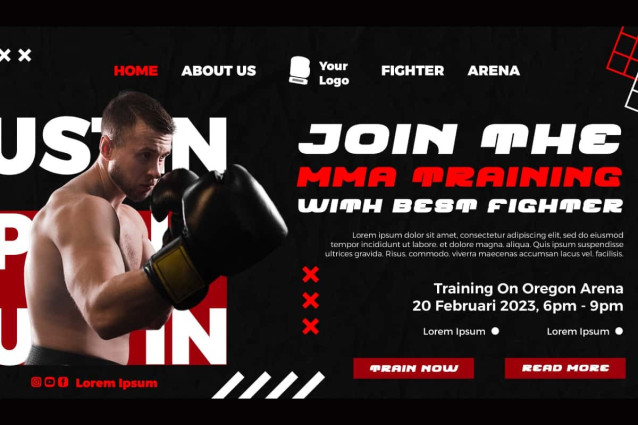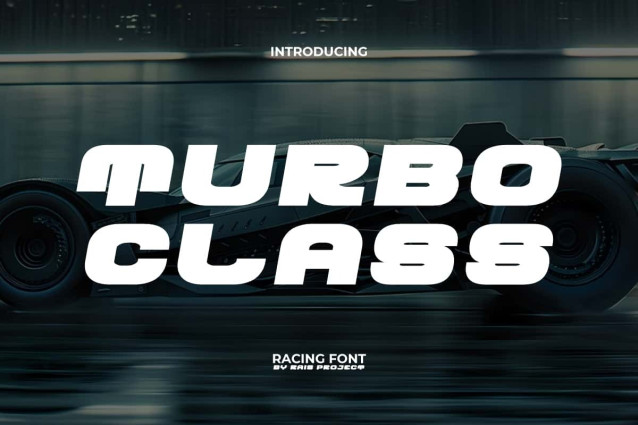
Turbo Class Font
Turbo Class Font is a modern yet playful fun racing font that can convey a modern vibes by RaisProject. This font has a casual and bold style so it can be paired with other types of fonts to make the design even more perfect. It will be great for poster, label, signage, stationery, custom design, product packaging, quotes, brand image, advertisement, invitation, marketing material, website page, and more!